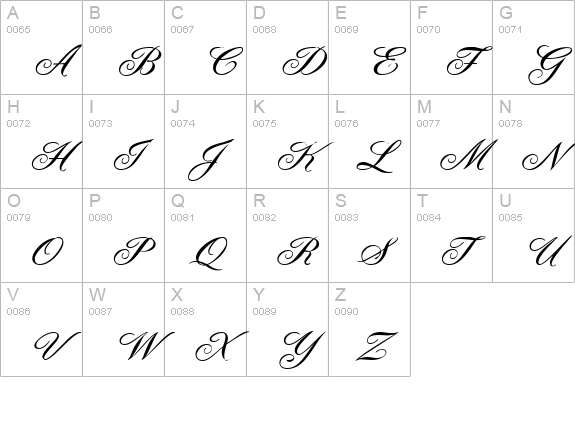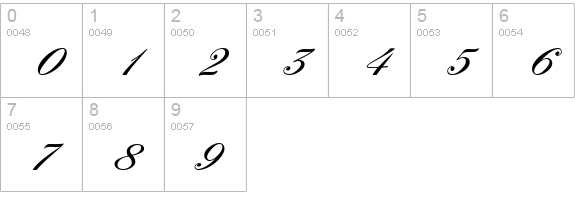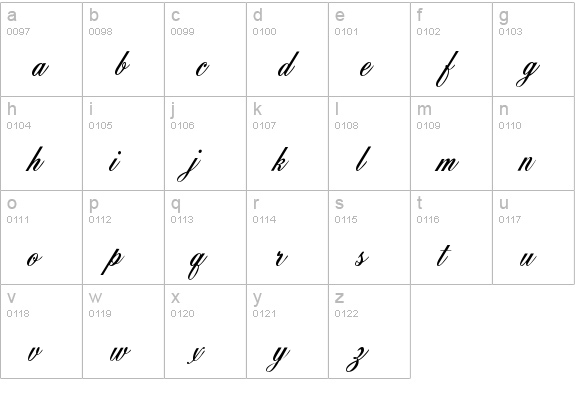
FleurishScript Font Details
FleurishScript font is a beautifully crafted typeface that exudes elegance and sophistication. With its delicate curves and flowing lines, this script font is perfect for adding a touch of refinement to any design project. Whether you're creating wedding invitations, branding materials, or social media graphics, FleurishScript font will elevate your work to new heights. What sets FleurishScript font apart is its versatility - it can be used for both formal and casual designs, making it a must-have in any designer's toolkit. The graceful letterforms and intricate details of this font will captivate your audience and leave a lasting impression. And the best part? FleurishScript font is completely free to download at FontsMarket.com. So go ahead and enhance your designs with this stunning script font today!